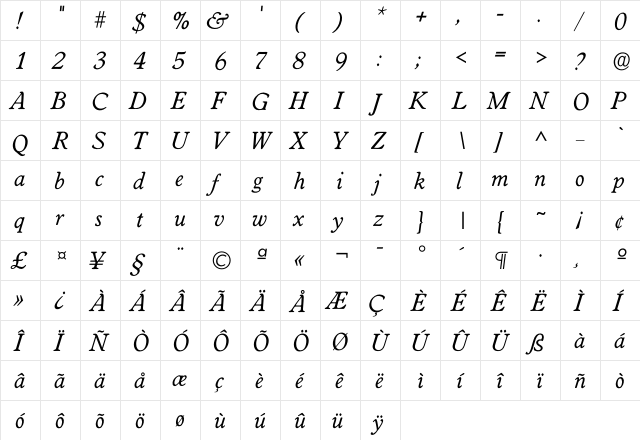
Iworcester Regular
Design Context for Iworcester Typeface
Iworcester takes a measured approach to typography — its balanced proportions and neutral character make it a reliable workhorse for both digital and print work.